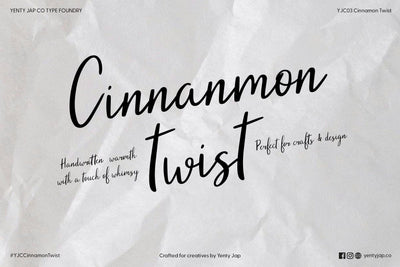
YJC Cinnamon Twist Font - Handwritten Script Font for Weddings, Stationery
Introducing YJC Cinnamon Twist, a flowing handwritten script that blends warmth with effortless charm. Its smooth curves and natural strokes create an inviting yet refined look, perfect for adding personality and elegance to your designs. With a touch of whimsy and a contemporary feel, this font is designed to capture attention while maintaining legibility.
1. A full set of uppercase and lowercase letters with multilingual support
2. Numbers, punctuation, and symbols
Perfect For:
• Product Packaging: Adds a handcrafted touch to labels, packaging, and gift tags.
• Wedding Invitations & Stationery: A romantic and graceful script that enhances the beauty of special occasion designs.
• Quotes & Social Media Graphics: The natural hand-drawn aesthetic creates eye-catching, engaging posts.
• Social Media Graphics: Create attention-grabbing posts that radiate joy and authenticity.
• Greeting Cards & Printable: A heartfelt and expressive script that makes messages feel warm at heart.